1. Montserrat
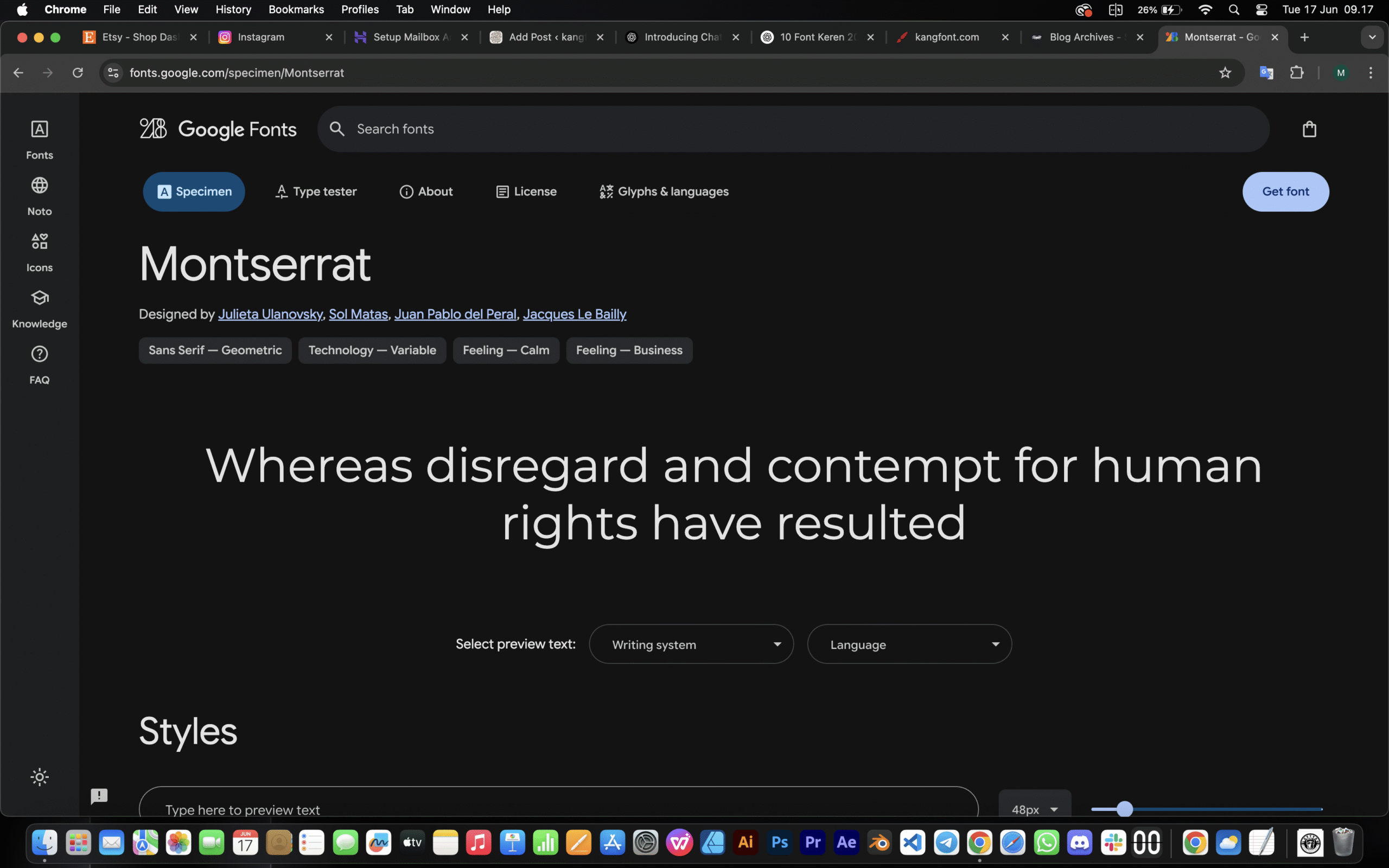
📁 Style: Modern sans-serif
Clean, professional, and widely used—Montserrat is perfect for branding, websites, and editorial designs.
2. Playfair Display
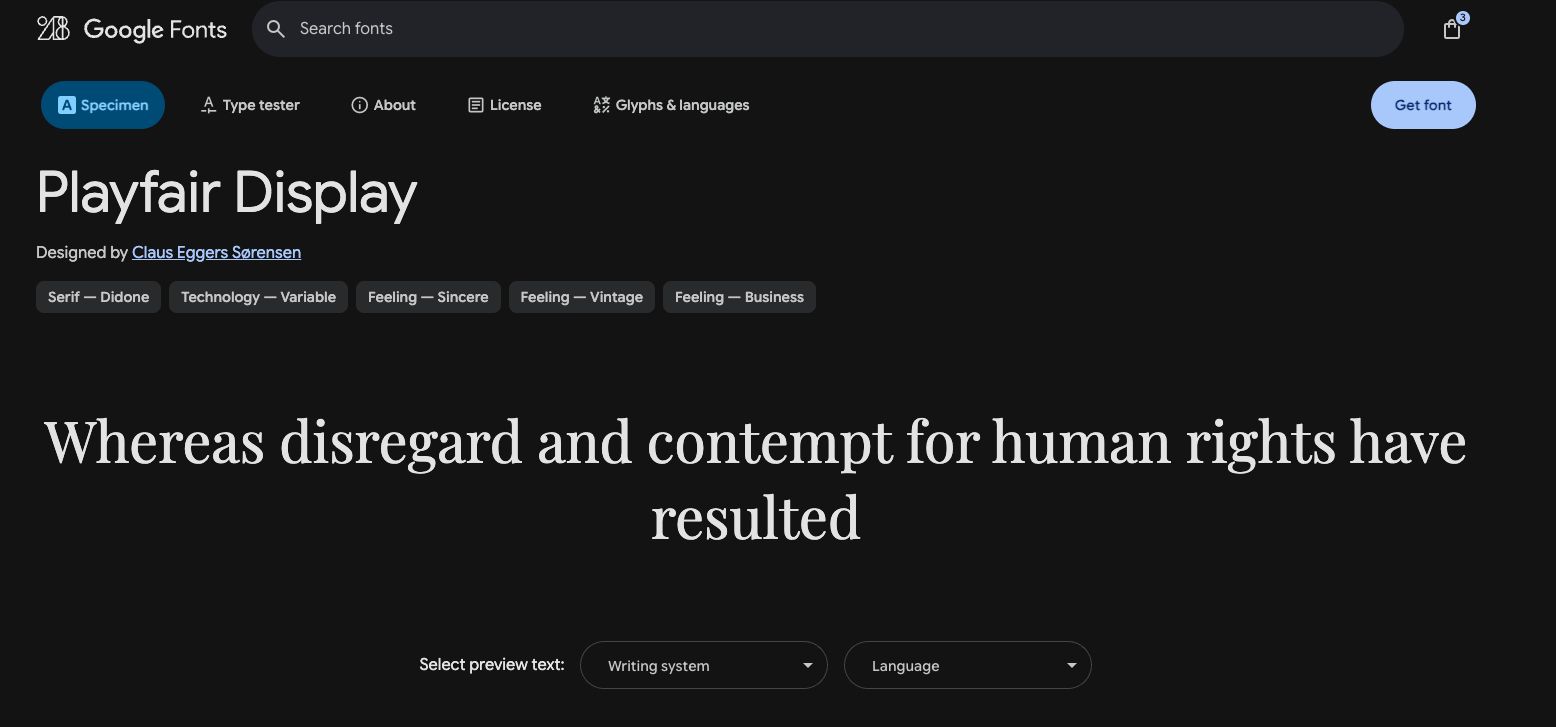
📁 Style: Elegant serif
This serif font brings a classic, upscale feel to invitations, product packaging, or magazine titles.
3. Raleway
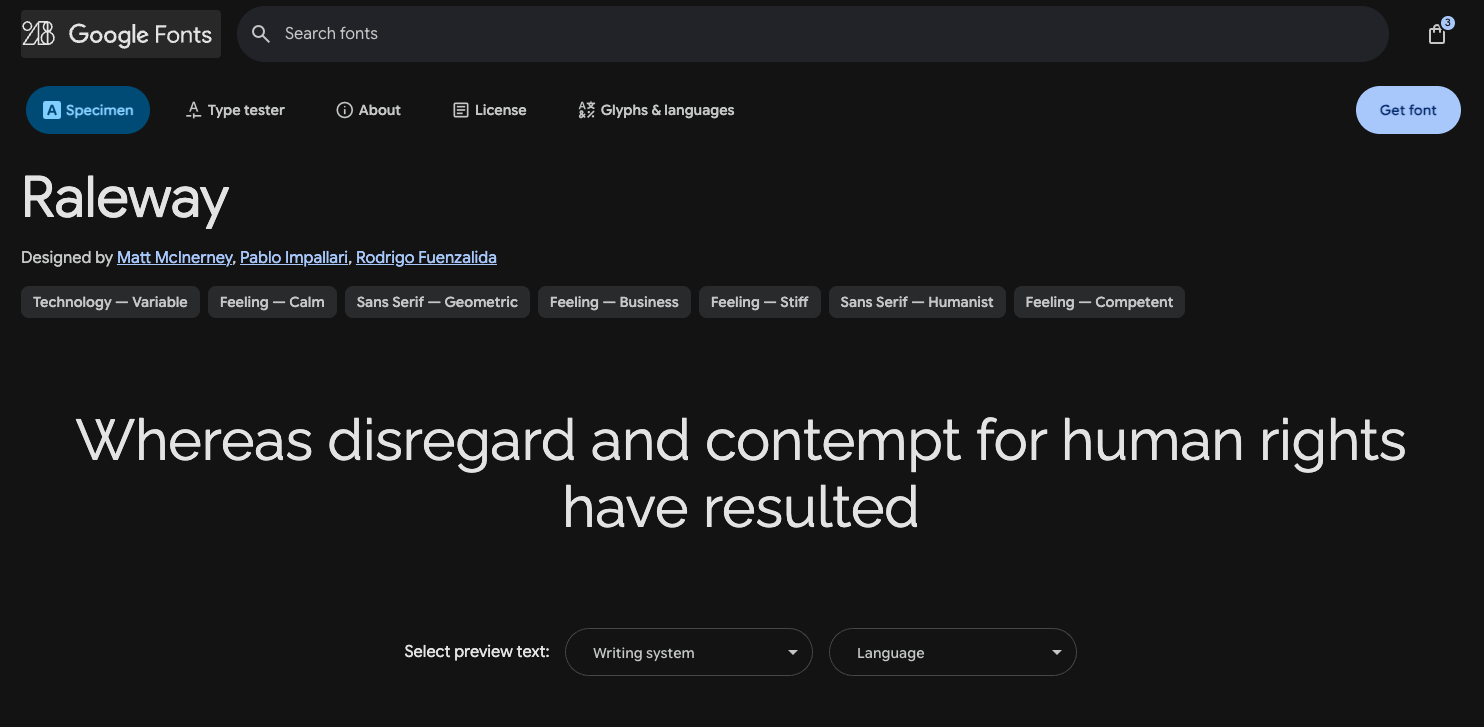
📁 Style: Lightweight sans-serif
Minimal and sleek—Raleway is great for modern portfolios, startup branding, and app interfaces.
4. Bebas Neue
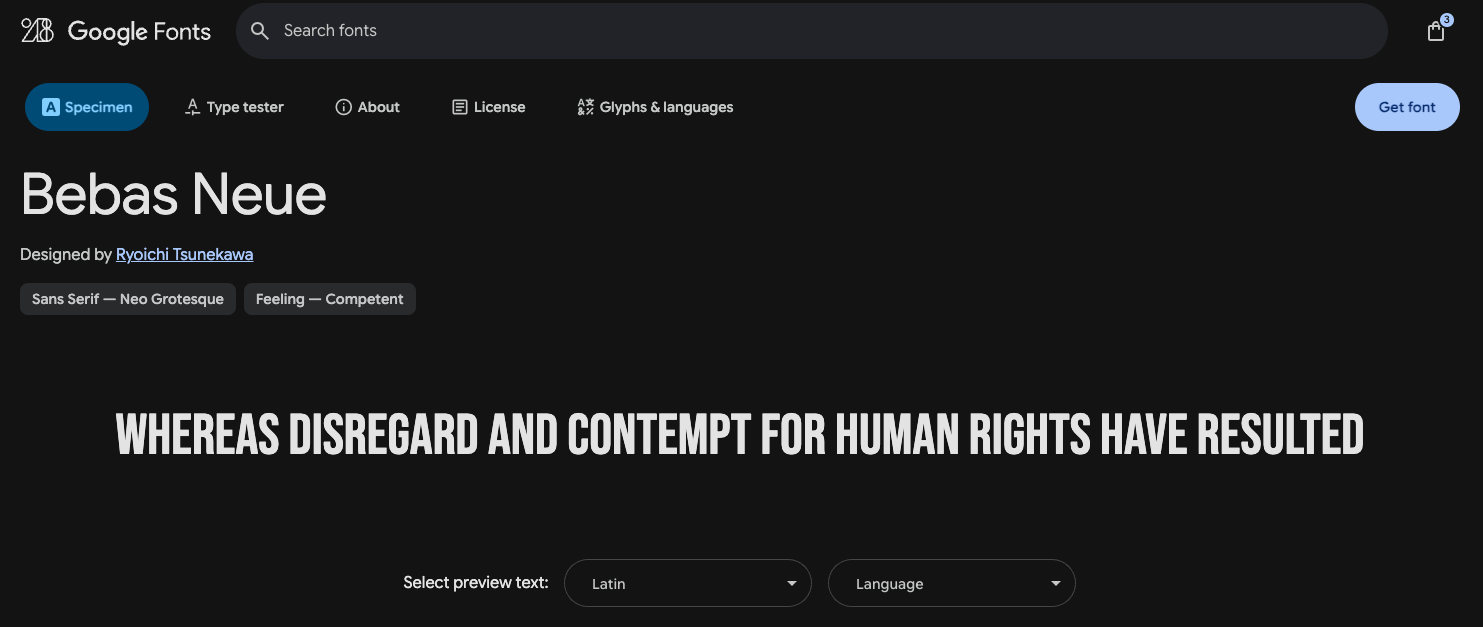
📁 Style: Bold sans-serif
A favorite for posters and banners—Bebas Neue is bold, uppercase, and ready to make a statement.
5. Lora
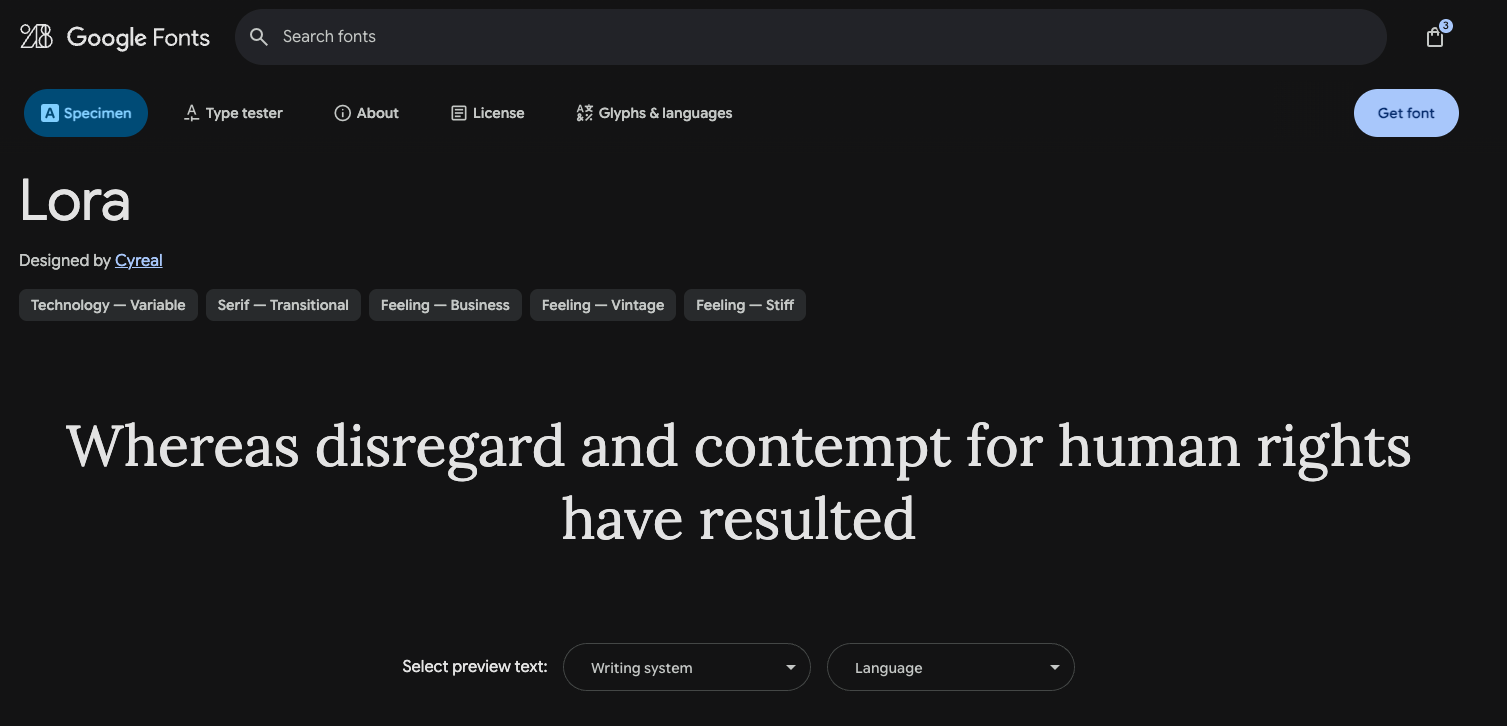
📁 Style: Classic serif
Elegant yet readable—Lora works well for long-form content like blogs, ebooks, and articles.
6. Poppins
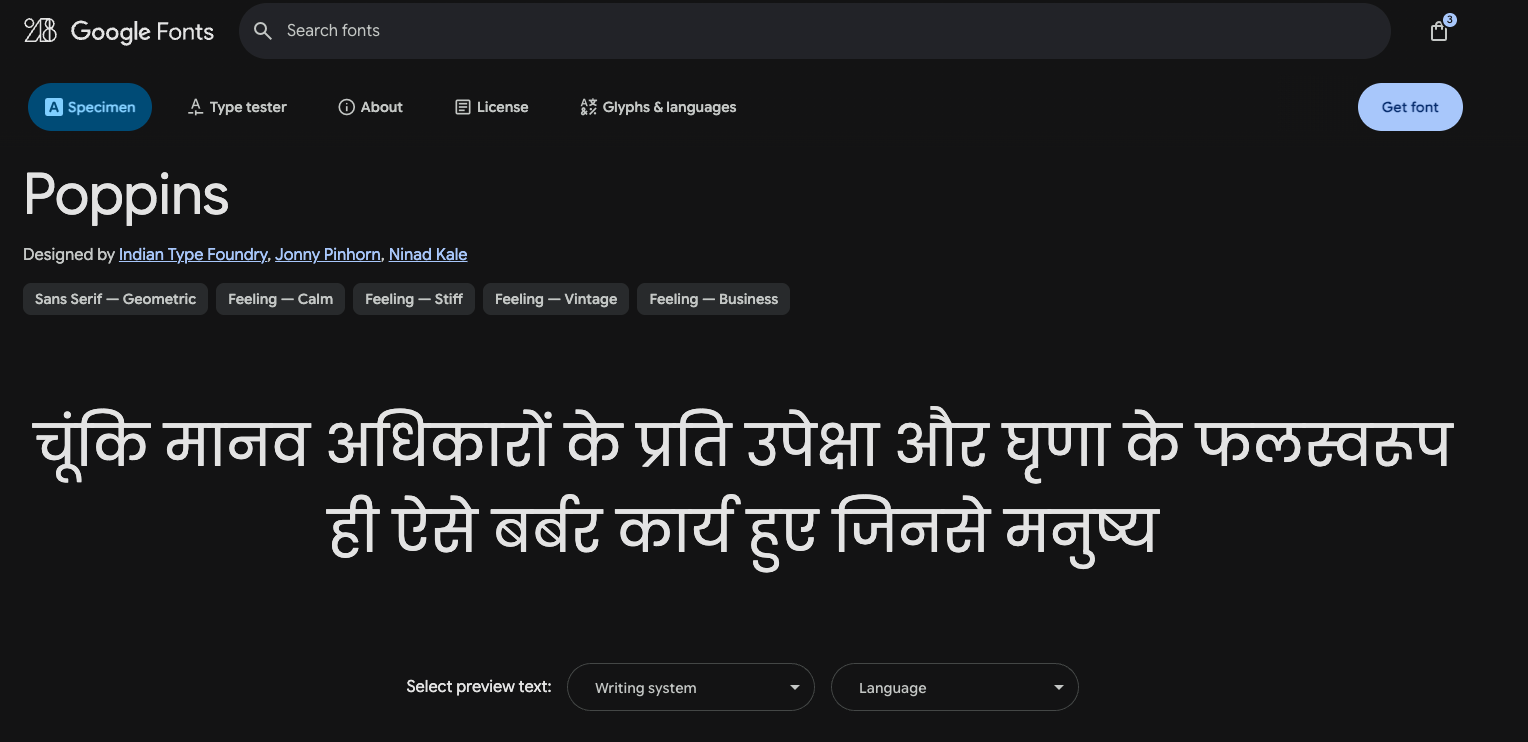
📁 Style: Geometric sans-serif
Rounded and friendly, Poppins adds a clean and modern touch to any project, digital or print.
7. Anton
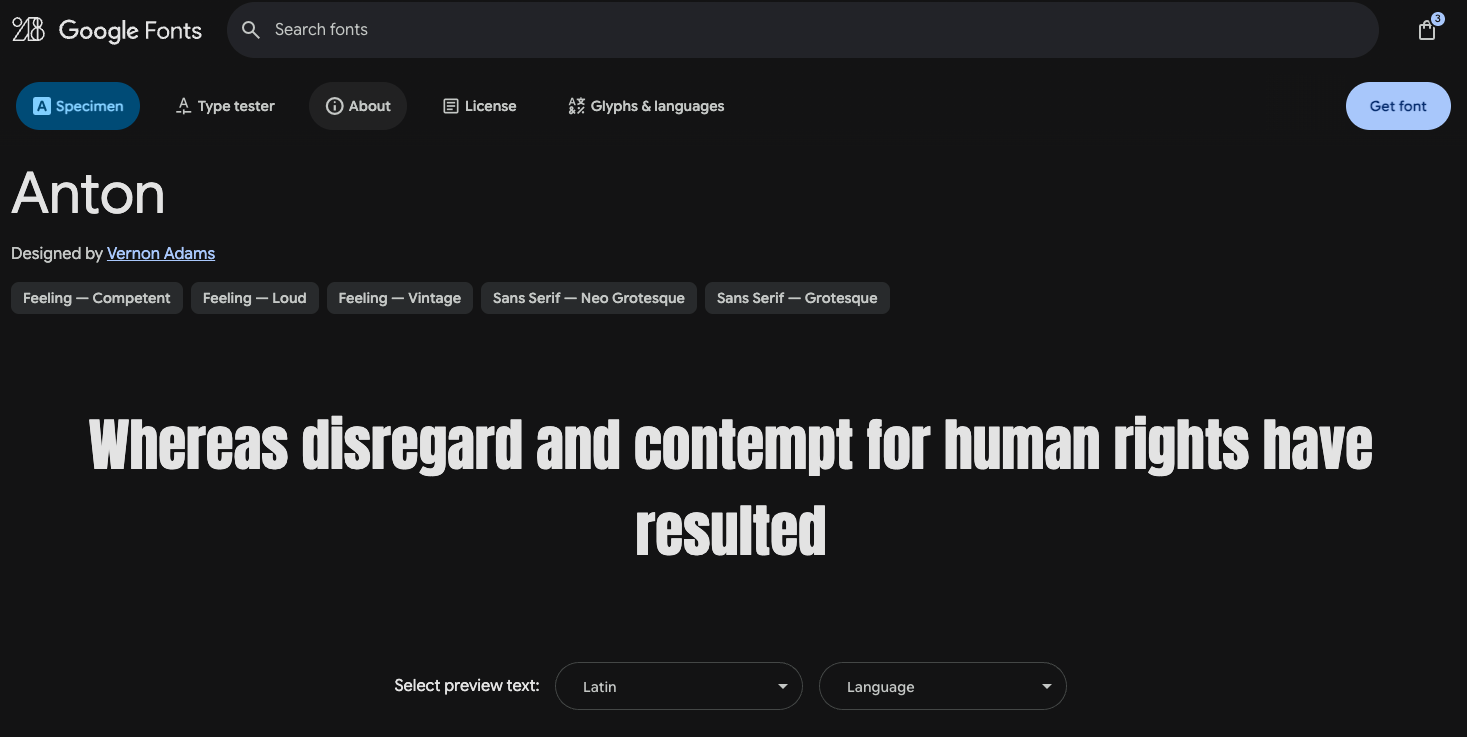
📁 Style: Bold display
Need to grab attention fast? Anton is made for headlines, event posters, and eye-catching ads.
8. Oswald
📁 Style: Condensed sans-serif
Tall, sharp, and refined—Oswald is ideal for editorials, web headlines, and landing pages.
9. Merriweather
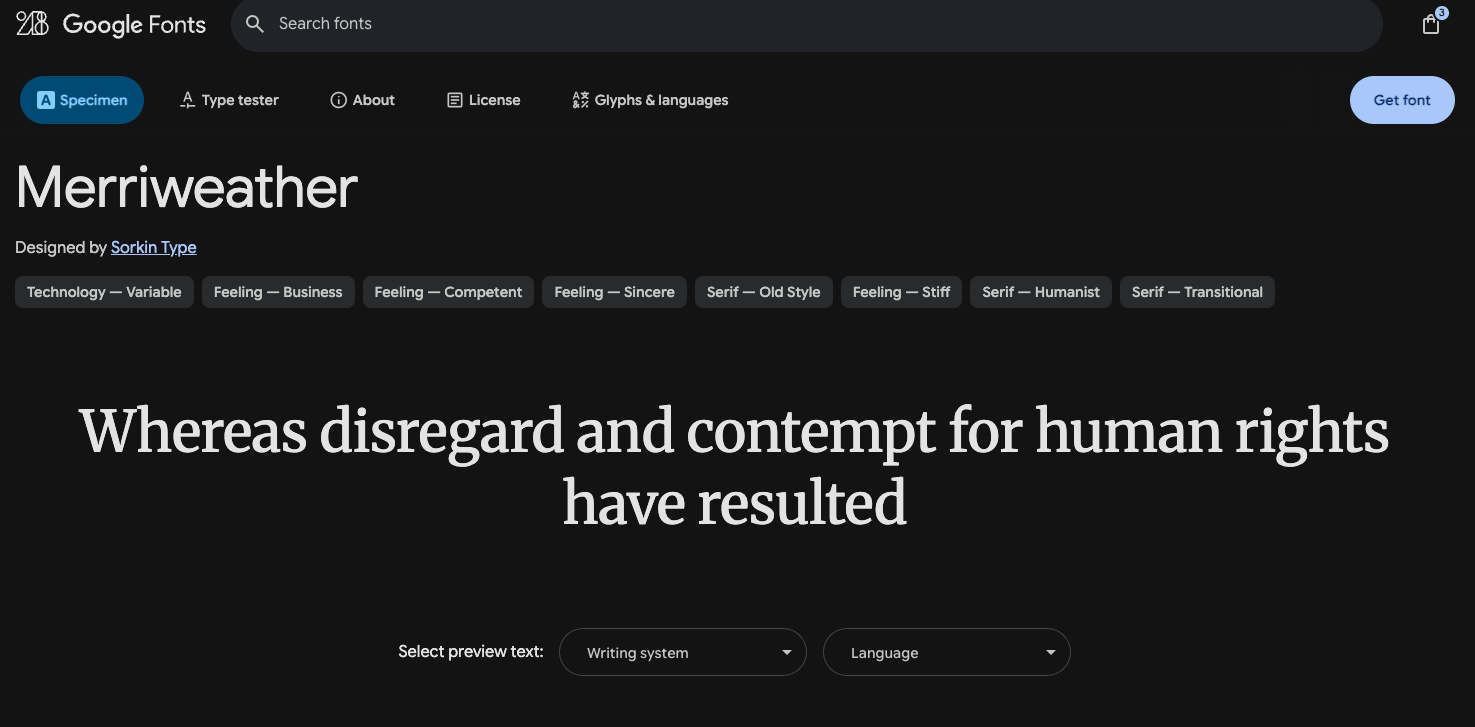
📁 Style: Readable serif
Merriweather was designed for digital screens and is perfect for blogs, reports, and ebooks.
10. League Spartan
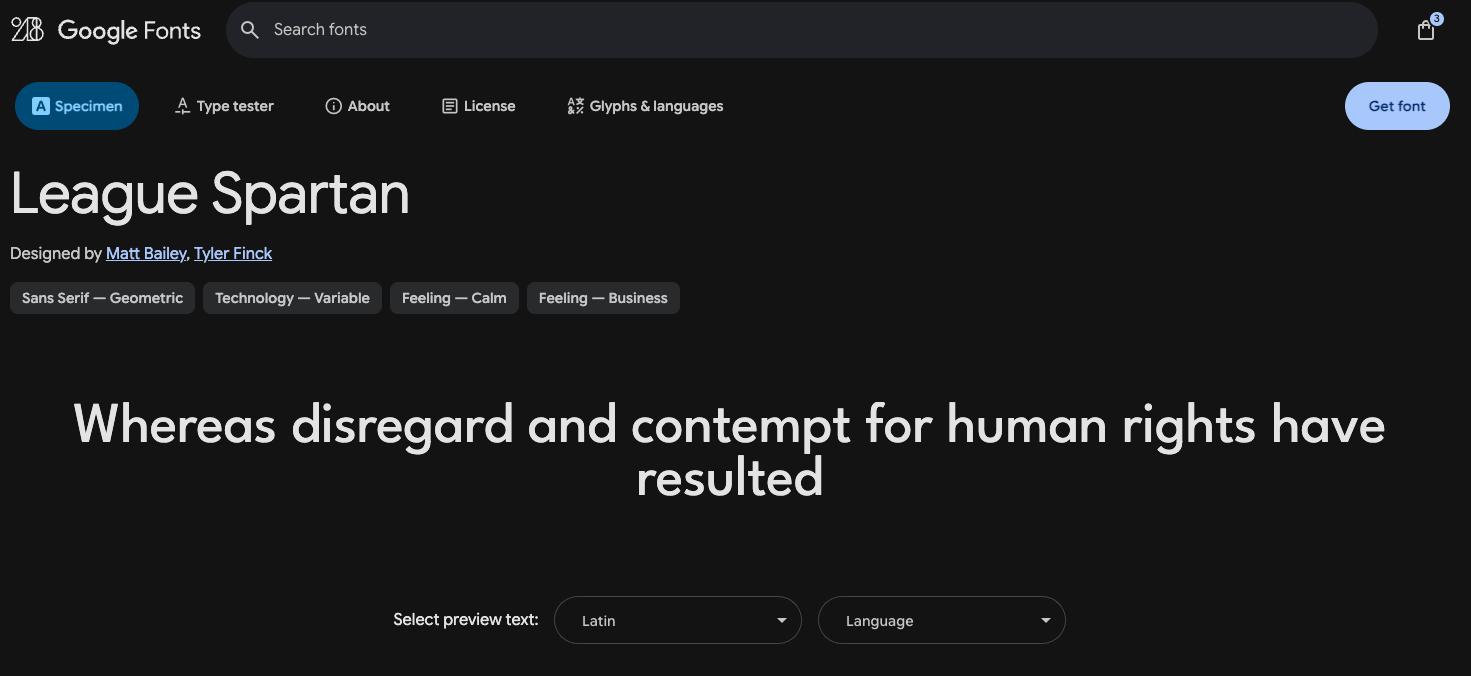
📁 Style: Bold geometric sans-serif
Strong and modern, this font is ideal for logos, product labels, and bold marketing materials.